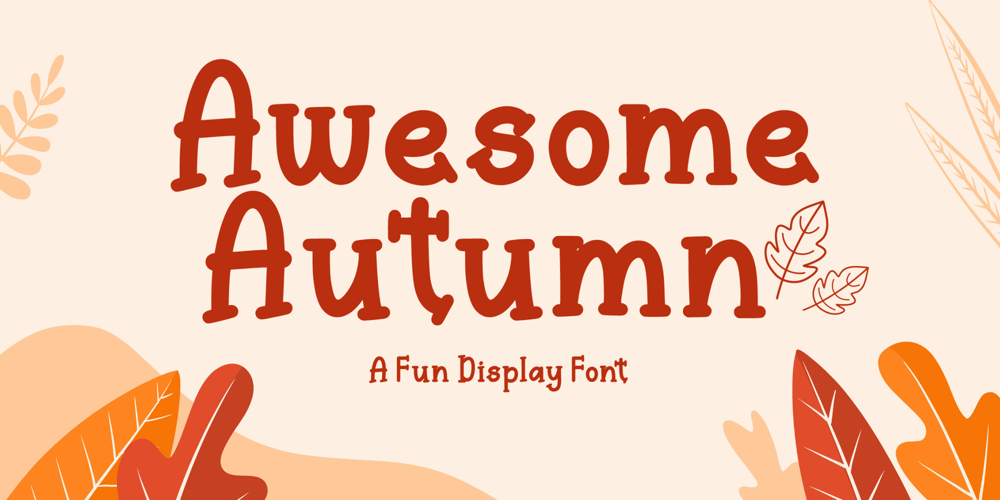
Awesome Autumn
Awesome Autumn font
Awesome Autumn Font Family was designed by Agung Eko Nugroho and published by AEN Creative Studio. Awesome Autumn contains 2 styles and family package options. Awesome Autumn is a fun hand-lettered fall font design that will enhance your work with its playful look. This font is perfect for social media, crafty projects, greeting cards, birthday invitations, and more! This font includes basic punctuation marks and international characters.